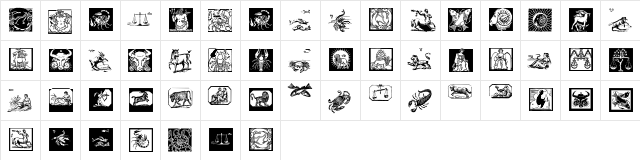
ZodiacsSignStars Regular
Design Context for ZodiacsSignStars Typeface
ZodiacsSignStars is a composed and adaptable typeface that performs quietly and consistently across a wide range of design contexts.